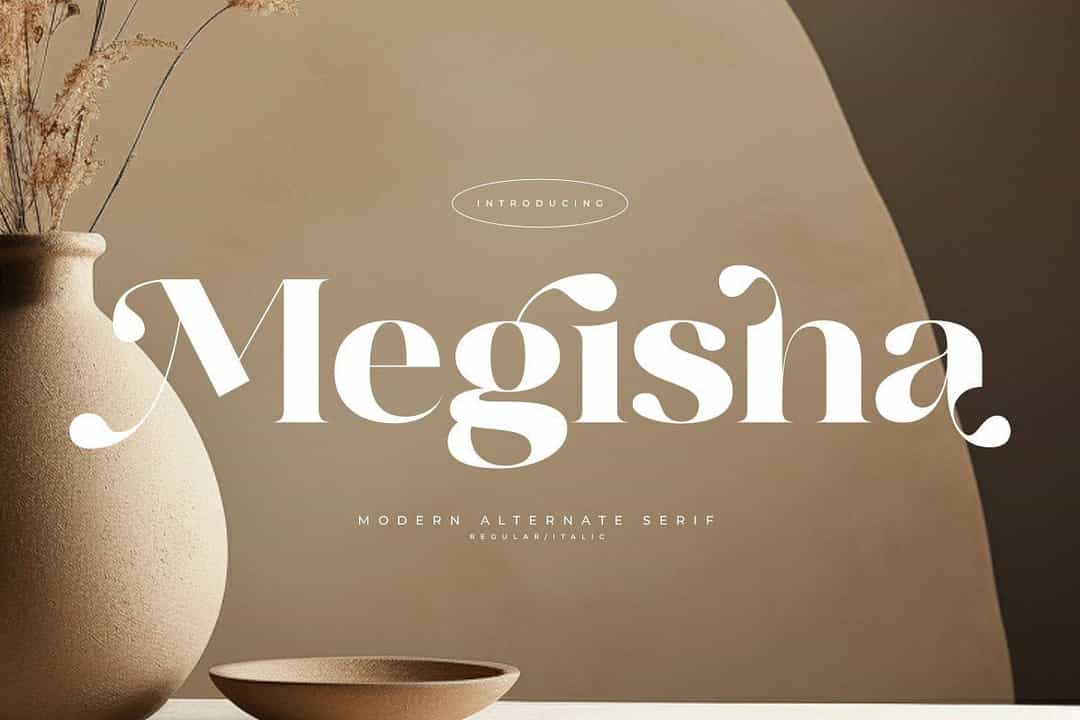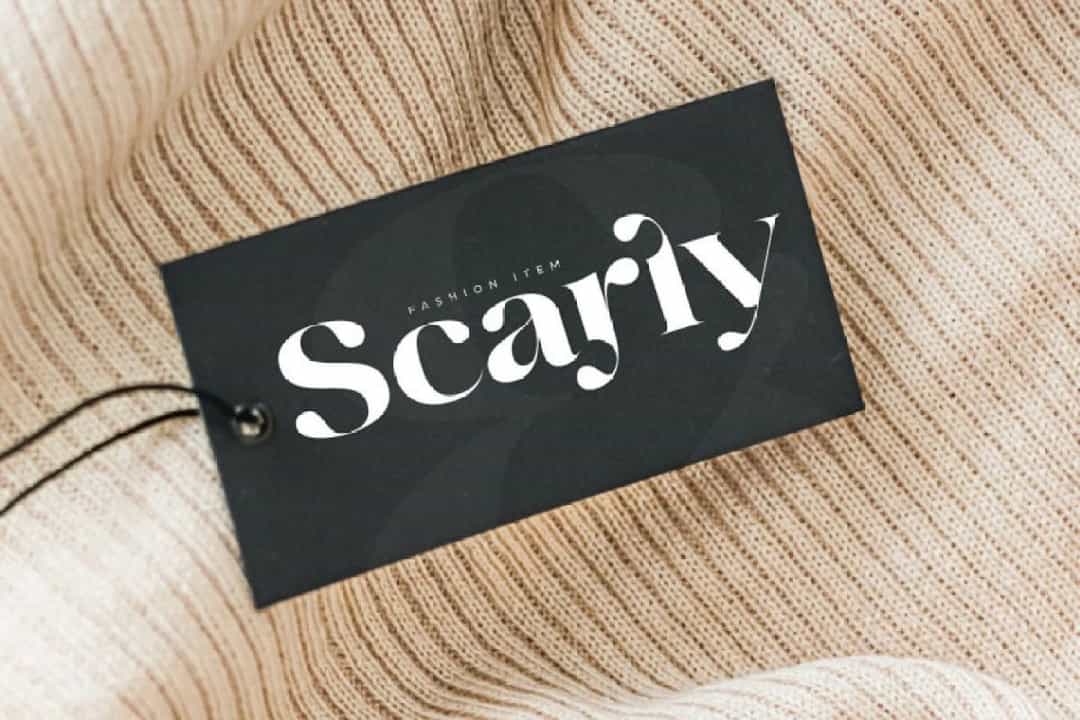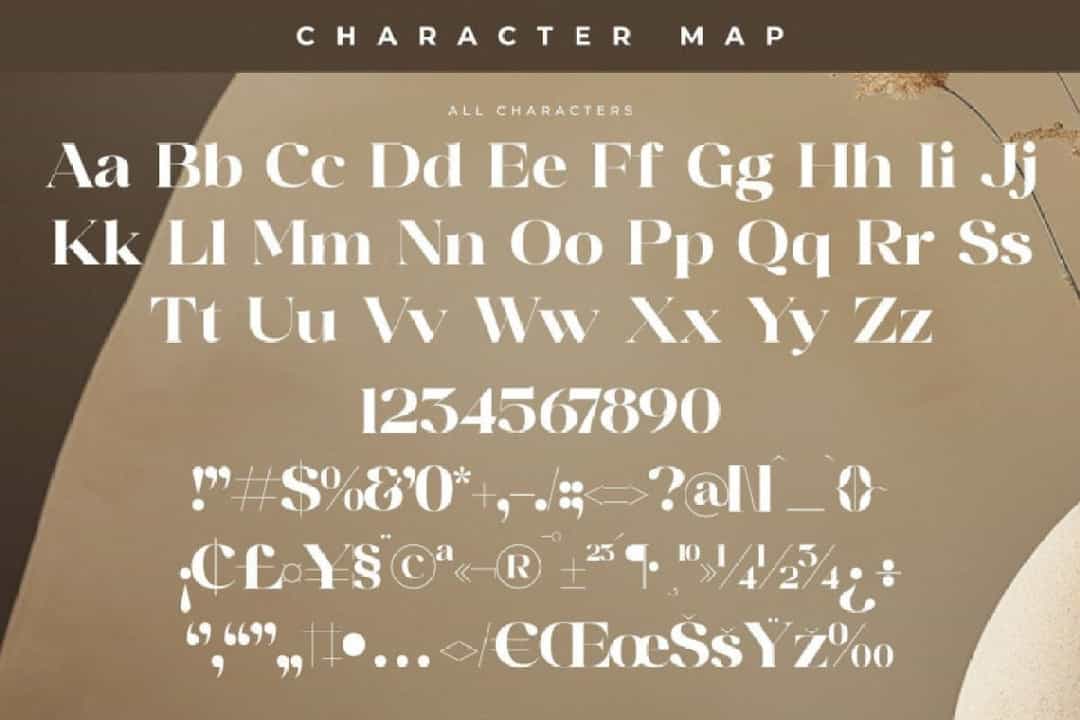
Letterena’s Megisha Modern Alternate Serif font is a luxurious Serif font perfect for use in logo design, branding projects design, homeware packaging, product mugs with quotes shopping bags posters T-shirts book covers name cards greeting cards invitation cards labels watermarks photography special events photography or any other luxurious and stunning projects that require a Serif flavor.